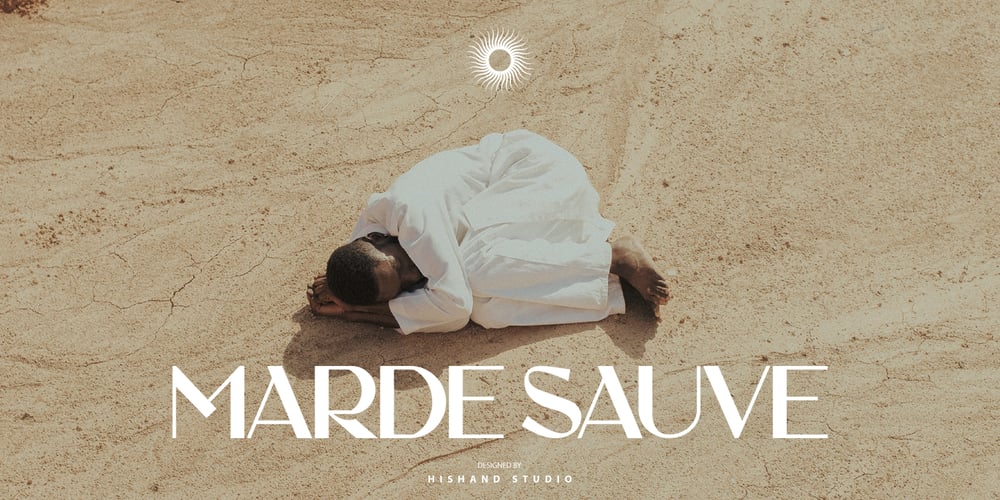
Marde Sauve Font Family was designed by Putu Dody Permana and published by Hishand Studio. Marde Sauve contains 3 styles and family package options. Introducing MARDE SAUVE, an elegant display with aesthetic look. Perfect for who needs touch of elegancy, stylish, classy beautiful bold type, and modernity for their design.Complete with ligatures alternates regular hollow icon kerning multilingual support